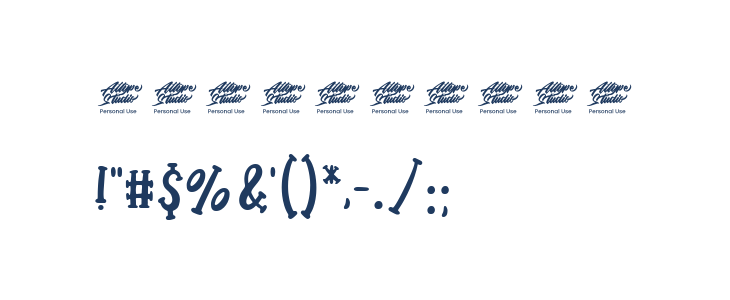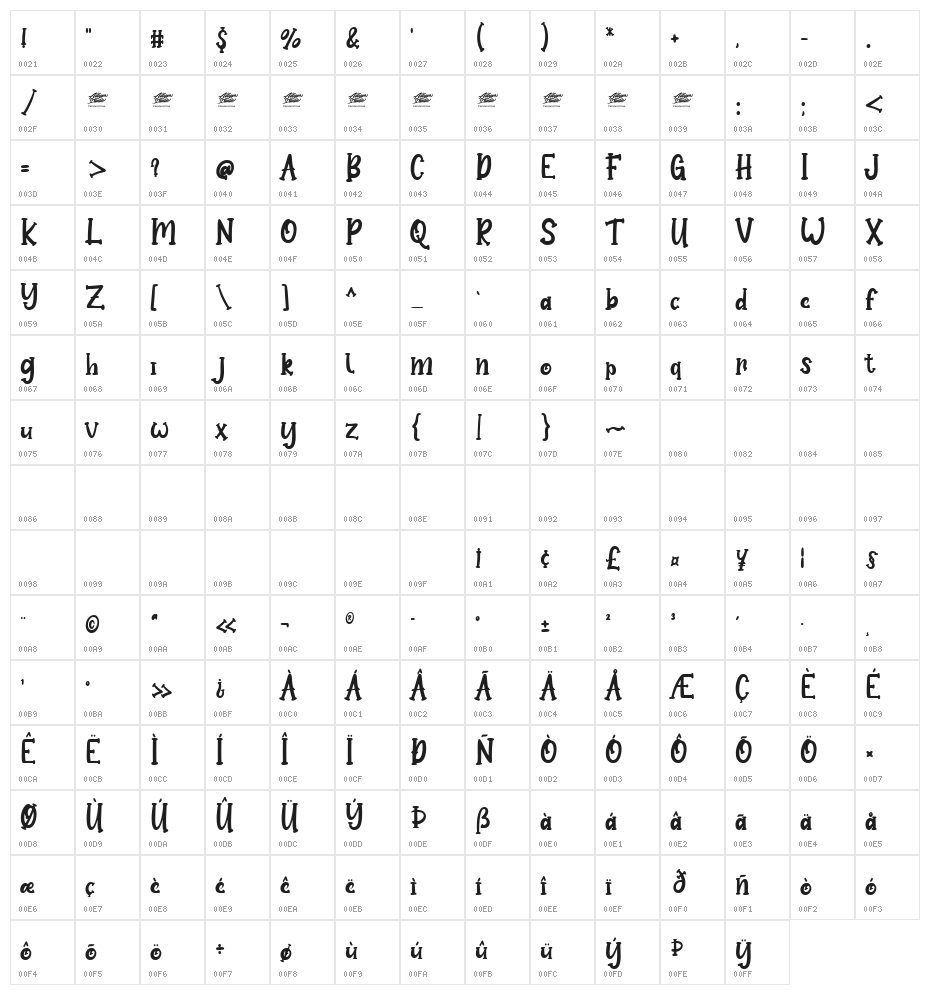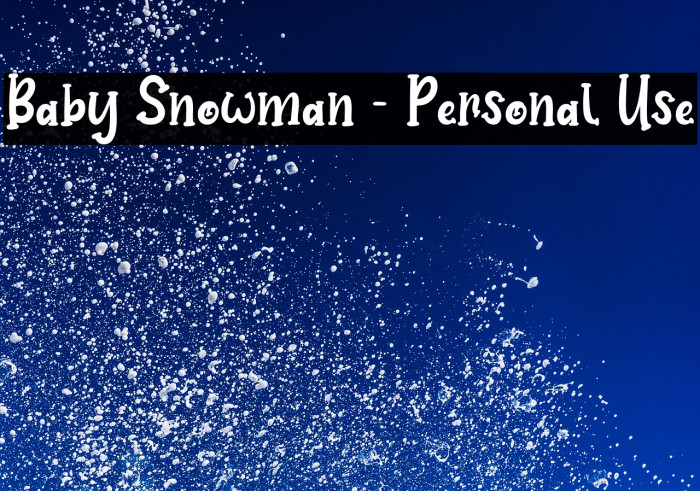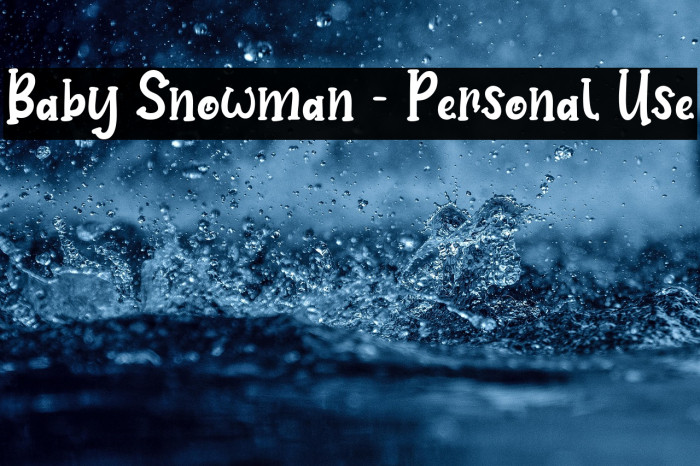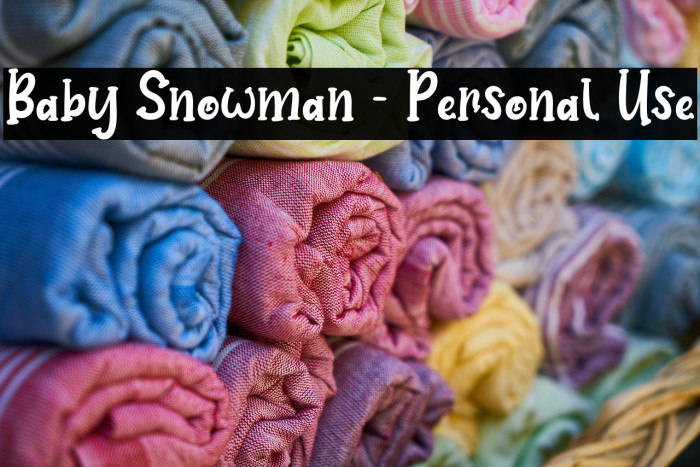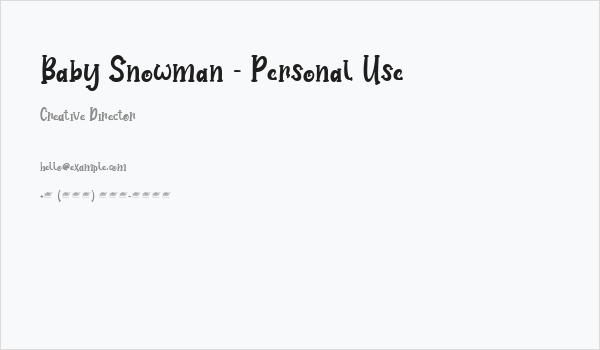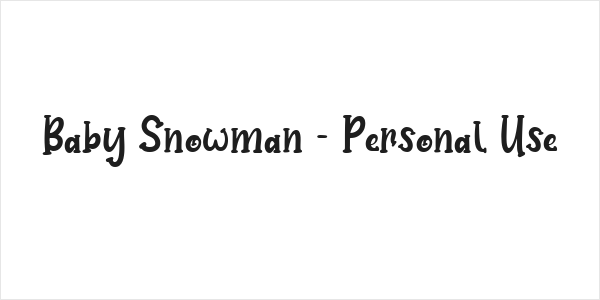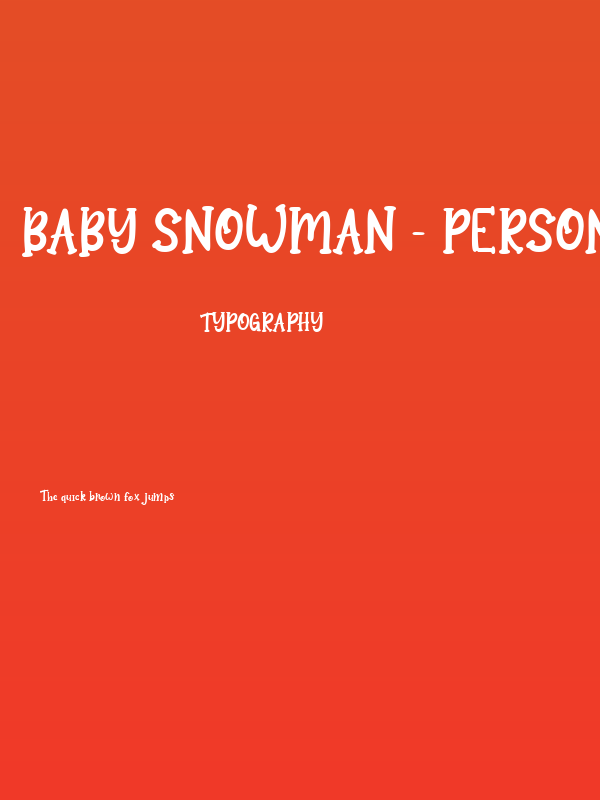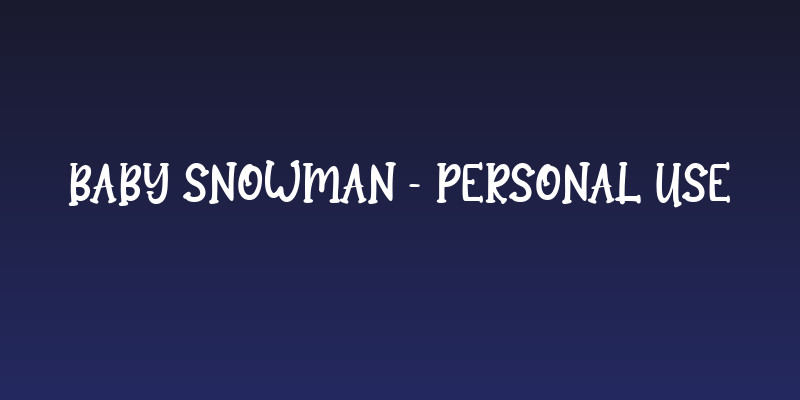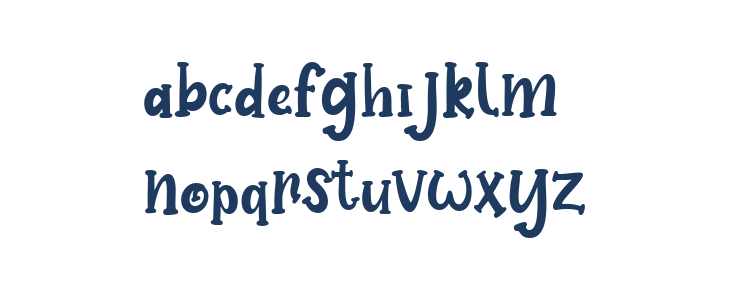
Baby Snowman - Personal Use Font
Baby Snowman - Personal Use Description
This playful and whimsical font features a handwritten style with a touch of charm and personality. The characters are slightly irregular, giving it a casual and friendly appearance. The uppercase letters are bold and prominent, while the lowercase letters maintain a consistent flow, enhancing readability. The font includes a full set of numerals and a variety of special characters, making it versatile for different uses. Its unique style is perfect for projects that require a personal touch, such as invitations, greeting cards, and playful branding. The overall design is both approachable and distinctive, making it stand out in creative projects.
| Proposed Projects | Ideal for invitations, greeting cards, playful branding, and creative projects. |